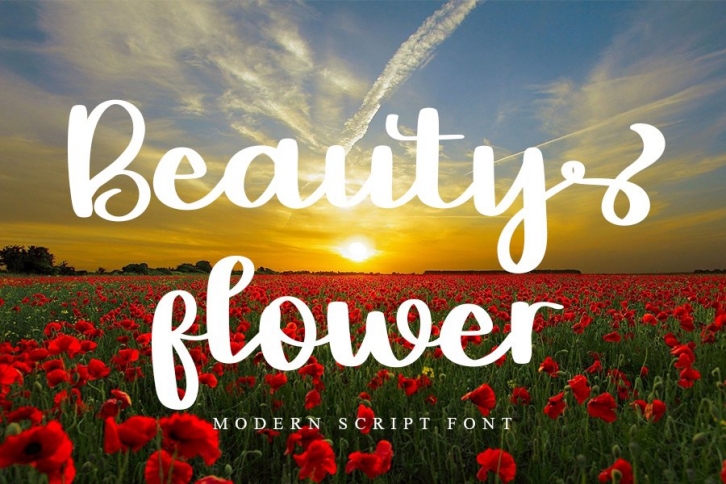
Beauty Flower is a trendy and unique font with an authentic style. It was designed by KINSTUDIO and it's a great choice for creative people who need such a font. It was released on April 8, 2021 and the file size is 20.99 MB. Beauty Flower will add an organic vibe to any design idea!